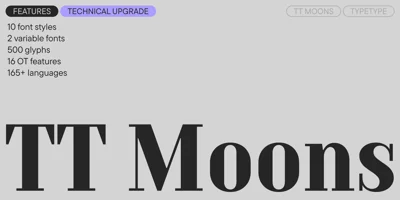
TT Moons Font
TT Moons Font is perfect for contemporary projects including modern tech branding, minimalist app interfaces, sleek website headers, architectural presentations, avant-garde fashion magazines, futuristic poster designs, geometric logo creation, and cutting-edge digital publications. This innovative typeface brings modern sophistication and geometric precision to any design project.
What makes TT Moons Font exciting is its unique geometric construction inspired by lunar phases and celestial forms. The carefully balanced letterforms feature distinctive circular elements and angular intersections that create a truly memorable visual identity. This font delivers the perfect combination of mathematical precision and organic inspiration, making it ideal for brands that want to convey innovation while maintaining approachable elegance.
The TT Moons Font family typically includes multiple weights from thin to black with corresponding italic styles, complete character sets featuring uppercase and lowercase letters, numerals, punctuation, and extended symbols. The design often incorporates OpenType features including stylistic alternates and ligatures that enhance the geometric aesthetic. Premium versions may include additional weights and comprehensive language support for international applications.
Whether you're designing for tech startups, design agencies, or progressive brands, TT Moons Font delivers the distinctive modernity that sets projects apart from the competition. Its unique personality makes it perfect for memorable headlines and brand identities that need to make a lasting impression. The font's geometric heritage ensures it conveys precision and innovation, making it ideal for any project requiring the forward-thinking aesthetic of contemporary design excellence.